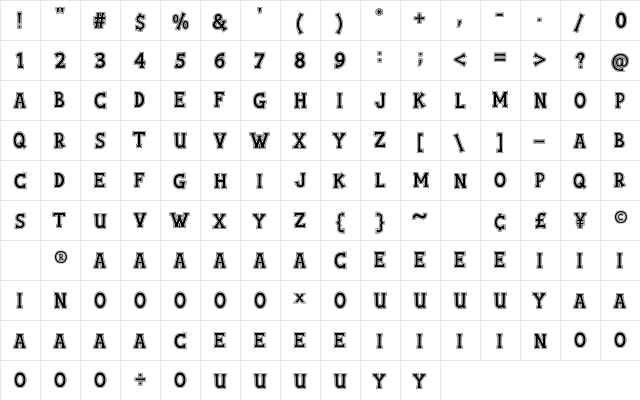
College Squad Regular
| Foundry | Fontsera |
| Designer | Youssef Boufelja |
Design Context for College Squad Typeface
College Squad has the bold swagger of sports branding: strong, assertive letterforms designed to dominate headlines and jerseys alike.
Built for sports team identities, athletic apparel, event posters, and high-energy promotional material.
Pro Tip: College Squad thrives on contrast — try it large, bold, and tight against a clean background for maximum visual impact.